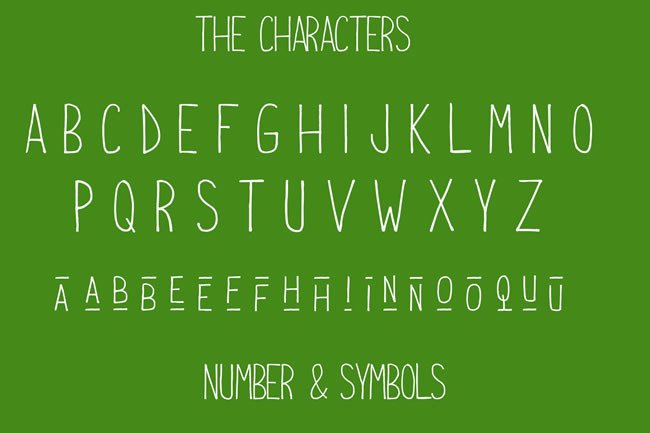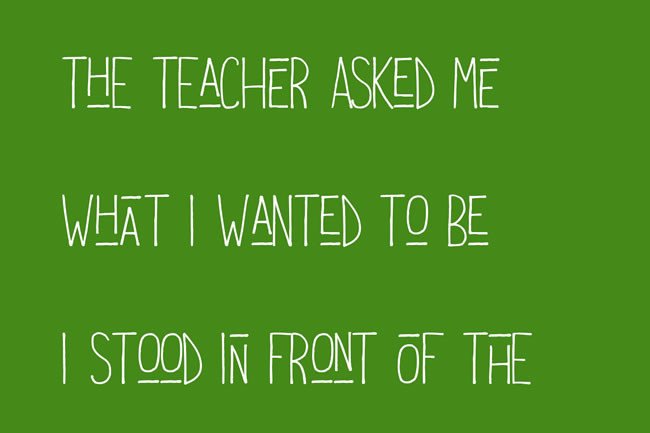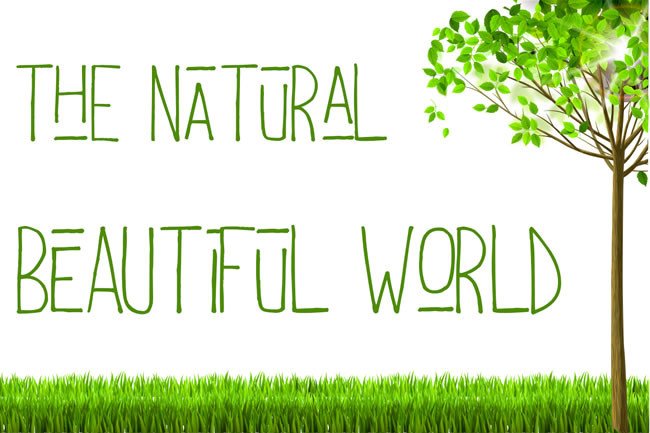
Introducing Atom Font: A Playful Handmade Typeface for Creative Projects
Are you a designer, crafter, or DIY enthusiast looking for a unique and versatile font to elevate your creative projects? Look no further than Atom Font, a playful handmade typeface that can add a personal touch to a wide range of applications. From headings and signatures to logos, t-shirts, and signage, Atom Font is the perfect choice for anyone seeking a distinctive and eye-catching font.
The Characteristics of Atom Font
Atom Font is a carefully crafted, handmade font that boasts a playful and charming personality. Its unique characteristics make it an excellent choice for various purposes, including:
- Headings: Atom Font’s bold and expressive design makes it perfect for headings, titles, and subtitles.
- Signatures: Add a personal touch to your emails, letters, and documents with Atom Font’s distinctive signature style.
- Logos: Create a memorable brand identity with Atom Font’s unique and recognizable design.
- T-shirts and apparel: Atom Font’s playful design makes it an excellent choice for t-shirts, hoodies, and other wearable items.
- Letterheads and stationery: Elevate your business correspondence with Atom Font’s professional yet friendly design.
- Signage and posters: Grab attention with Atom Font’s bold and eye-catching design, perfect for signage, posters, and flyers.
- Badges and labels: Add a touch of personality to your badges, labels, and other small design elements.
Why Choose Atom Font?
So, what sets Atom Font apart from other typefaces? Here are just a few reasons why designers and crafters love Atom Font:
- Unique design: Atom Font’s handmade design ensures that your projects stand out from the crowd.
- Versatility: Atom Font can be used for a wide range of applications, from digital designs to print materials.
- Ease of use: Atom Font is easy to read and works well in various contexts, making it a practical choice for designers and crafters.
- Playful personality: Atom Font’s playful design injects a sense of fun and personality into your projects.
Tips for Using Atom Font
To get the most out of Atom Font, here are some tips for using this versatile typeface:
- Experiment with sizes: Atom Font works well in various sizes, from large headings to smaller body text.
- Play with colors: Atom Font’s bold design looks great in a range of colors, from bright and bold to subtle and muted.
- Combine with other fonts: Atom Font pairs well with other fonts, making it easy to create visually appealing typography.
- Use for display text: Atom Font’s bold design makes it perfect for display text, such as headings, titles, and captions.
Atom Font is a playful handmade font that offers a world of creative possibilities for designers, crafters, and DIY enthusiasts. Its unique design, versatility, and ease of use make it an excellent choice for a wide range of applications. Whether you’re looking to create eye-catching headings, distinctive logos, or playful t-shirts, Atom Font is the perfect typeface for your next project. So why wait? Download Atom Font today and unleash your creativity!